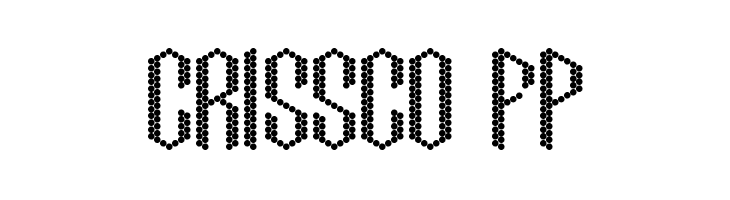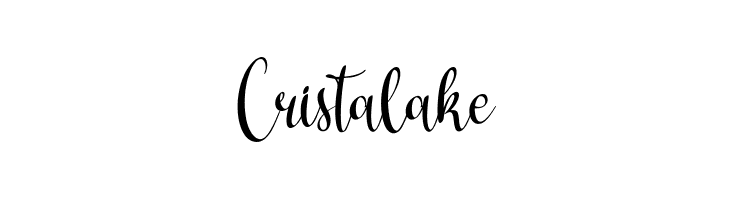
A bold, modern font with a blurred, dynamic effect and horizontal line pattern.
A bold, decorative font with a 3D line-shaded effect.
An elegant, fluid script font with interconnected strokes and a dynamic slant.
A modern, geometric font with thin lines and a minimalist style.
A bold, geometric font with a double-layered outline and modern appeal.
A bold, three-dimensional font with geometric shapes and layered outlines.
A bold, three-dimensional font with a layered, geometric design.
A playful, handwritten script font with dynamic, flowing strokes.
A cursive, italic font with elegant, flowing strokes and connected characters.
A playful and decorative font with circular embellishments on each character.
A playful, bubble-like decorative font with bold, outlined characters.
A classic and elegant script font with flowing, cursive letters.
A cursive, elegant font with smooth, flowing strokes.
A playful, curly font with a whimsical, handwritten style.
An elegant, flowing script font with a distinct italic slant.
Bold, outlined font with a modern, dynamic style.
A bold, slanted font with a modern, dynamic style.
A bold, hollow font with a three-dimensional effect, perfect for impactful designs.
A bold, decorative font with an outlined, three-dimensional effect.
A playful, hand-drawn font with elongated, dynamic characters.
A bold, dripping horror-themed decorative font.
Bold, playful display font with geometric, irregular shapes.
A cursive, handwritten-style font with smooth, connected letters and medium contrast.
A bold, rounded font with a playful and friendly style.
A bold, distressed stencil-style font with a grunge texture.
A bold, modern font with a strong and confident presence.